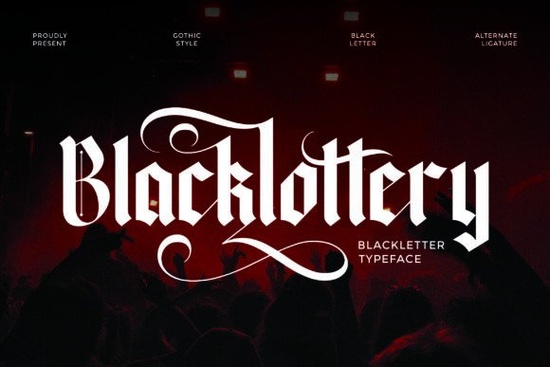
If you're looking for a blackletter font that balances gothic intensity with refined detail, Blacklottery Font is worth a closer look. Designed with dramatic strokes and ornate curves, it draws from medieval lettering traditions while offering modern flexibility through alternate characters and ligatures. Whether you’re creating a heavy metal band logo, designing tattoo flash, or crafting vintage-style packaging, this typeface adds a darkly artistic presence without feeling overly stiff or dated.
What makes Blacklottery stand out among blackletter fonts?
Many blackletter fonts lean heavily into historical replication, which can limit their use in contemporary design. Blacklottery avoids that trap by blending authenticity with usability. Its bold weight ensures strong visual impact even at smaller sizes, while the subtle flair in its serifs and terminals gives it an elegant edge. The inclusion of stylistic alternates means you can tweak individual letters to avoid repetition or add personality especially useful for logos or monograms where uniqueness matters.
Compared to other options in the category, such as Rebella, which leans more decorative and script-like, or the rugged Old English Texas with its western twist, Blacklottery stays firmly rooted in classic gothic structure while still feeling fresh. It’s not trying to be everything it knows its lane and executes it well.
Who should use Blacklottery Font?
This font works best for creators who need a commanding yet nuanced typographic voice:
- Band designers especially in metal, punk, or goth genres can use it for album covers, merch, and social graphics.
- Tattoo artists appreciate its legibility and ornamental details when sketching name pieces or symbolic text.
- Print-on-demand sellers can feature it on mugs, tees, or posters targeting fans of dark academia, historical fantasy, or vintage aesthetics.
- Small branding studios working with breweries, distilleries, or boutique apothecaries may find it perfect for labels that need old-world gravitas.
It’s less suited for body text or minimalist designs but that’s true of most blackletter styles. Used intentionally, Blacklottery enhances mood and message without overwhelming the composition.
How to get the most out of its features
To access alternate characters and ligatures, you’ll need design software that supports OpenType features (like Adobe Illustrator, Photoshop, or Affinity apps). In these programs, open the Glyphs panel and browse the available variants. Swapping a standard “A” for a more elaborate alternate, for example, can instantly elevate a logo from generic to custom.
Pairing is another key consideration. Because Blacklottery is so visually dense, it pairs best with clean, neutral sans-serifs like Helvetica Neue, Futura, or even a simple geometric typeface. Avoid combining it with other ornate scripts that often creates visual noise rather than harmony.
Practical tips before you commit
Finally, consider your audience. While the gothic style has broad appeal in certain niches, it can unintentionally signal “spooky” or “medieval reenactment” if used outside context. Make sure the mood matches your brand story.
Quick checklist before using Blacklottery Font:
- Confirm your design software supports OpenType features for alternates/ligatures.
- Test print or screen rendering at actual size don’t judge solely on screen previews.
- Pair with a simple, neutral typeface for balance.
- Ask: does the gothic tone align with my brand or message? If yes, proceed with confidence.